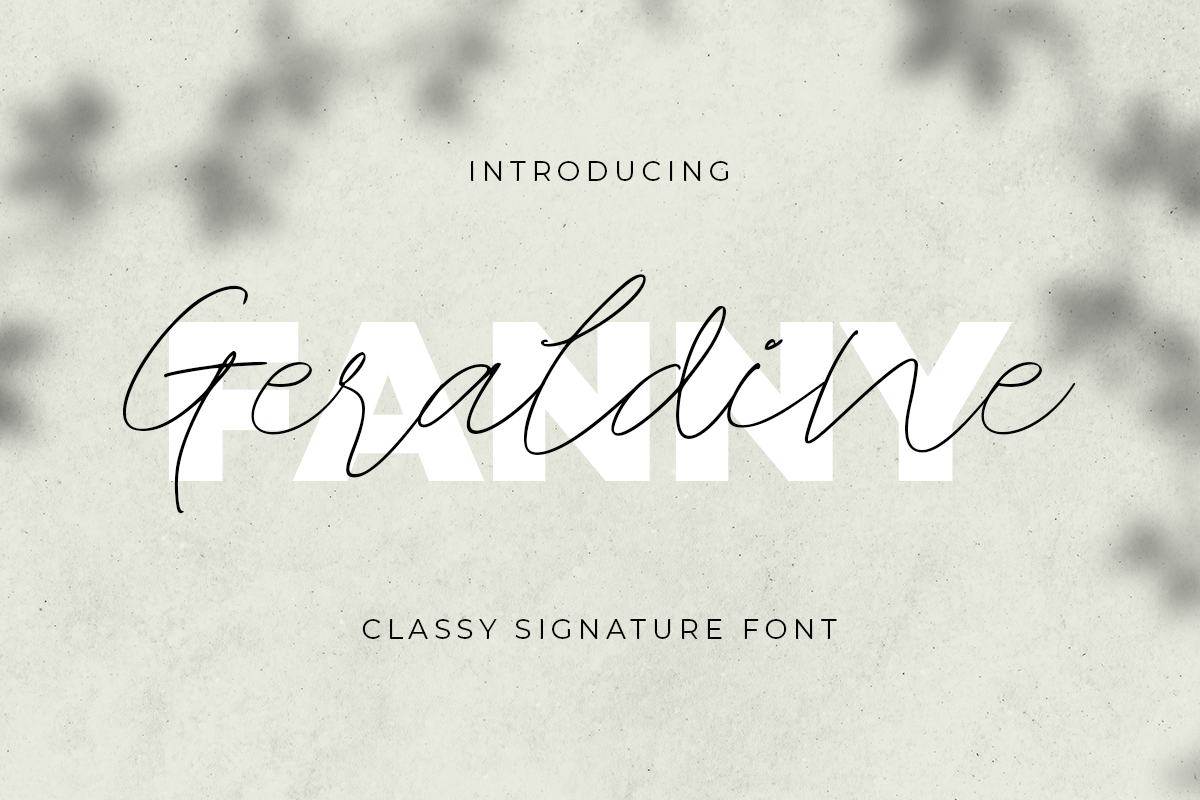
Geraldine
-Classy Signature Font
Geraldine
Geraldine is a Classy Handwritten font with luxury, elegant, modern, beauty and classy-look. This font crafted specials for classy-themed projects, ready to use on branding, Social Media, Logo, and Many more that needs Classy touches.